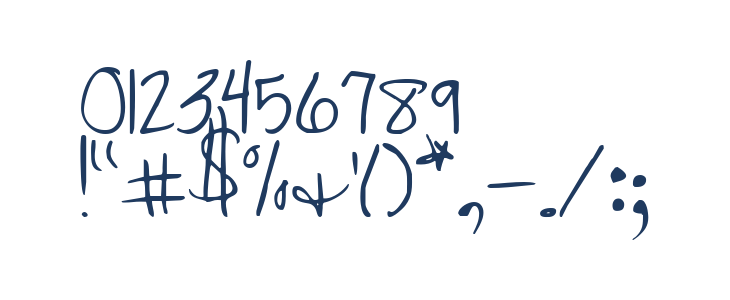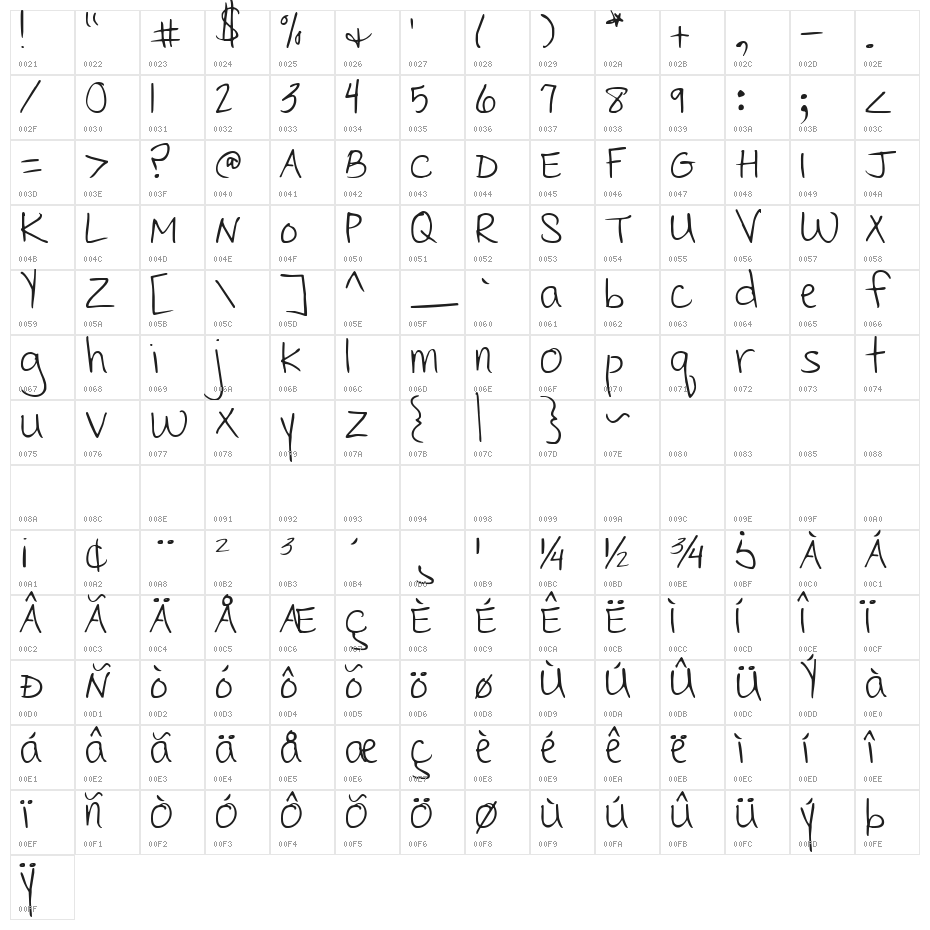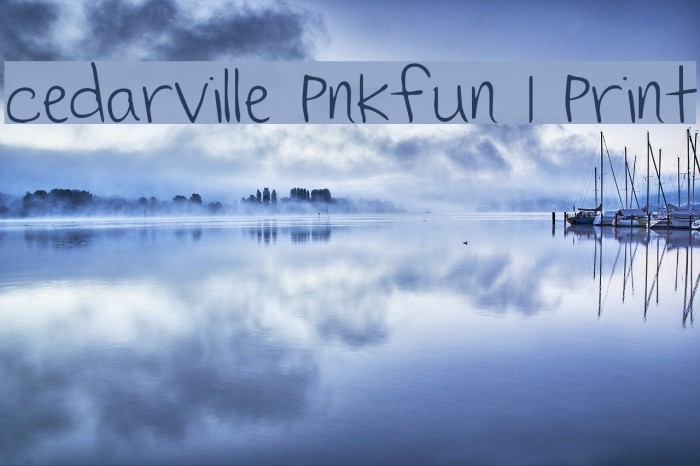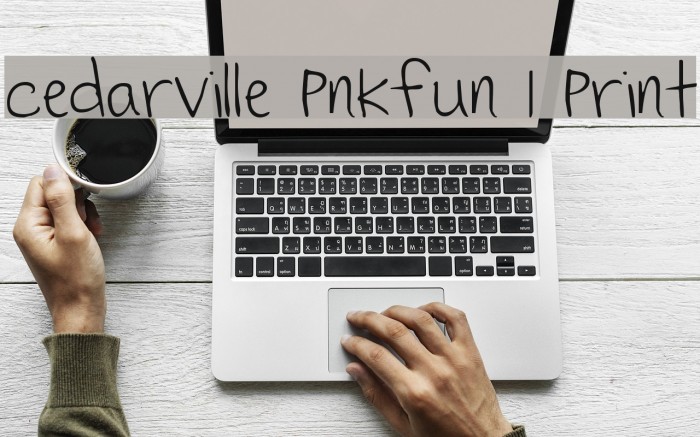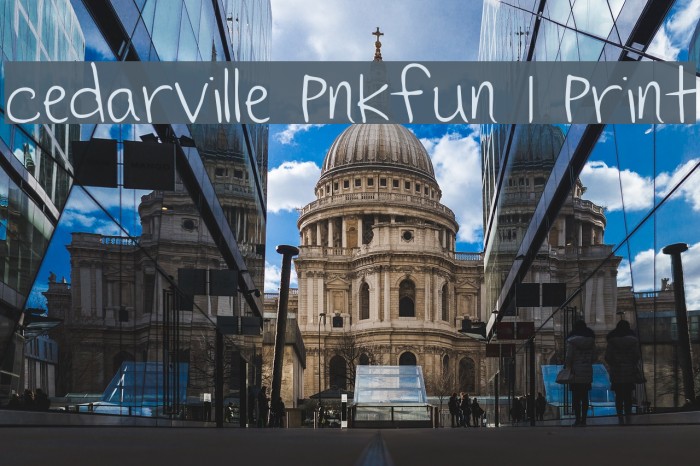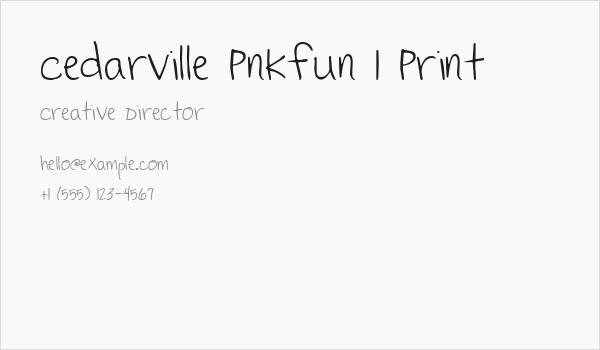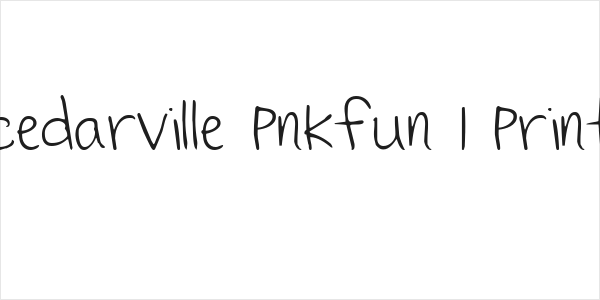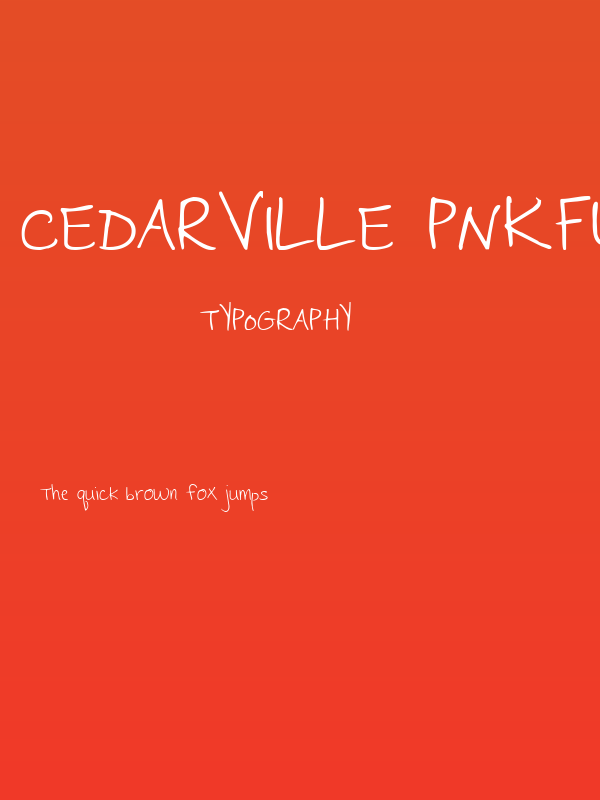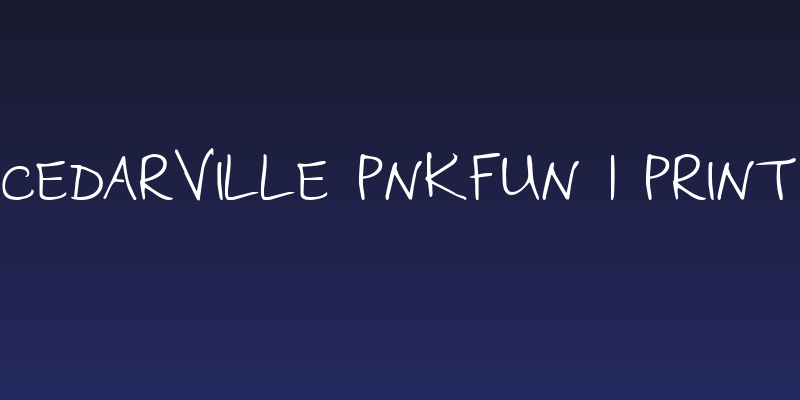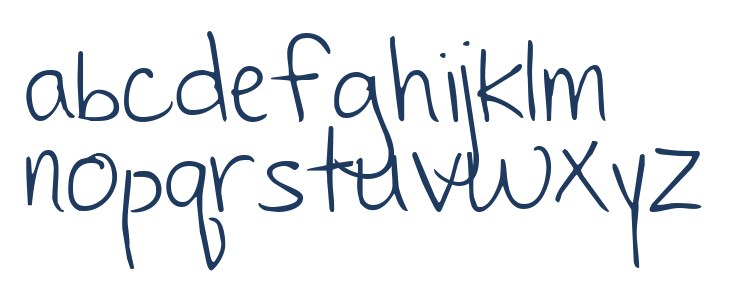
Cedarville Pnkfun 1 Print Font
Cedarville Pnkfun 1 Print Description
This font features a playful and casual handwritten style, characterized by its irregular strokes and informal appearance. The letters are slightly slanted, giving a dynamic and lively feel. The uppercase and lowercase letters maintain a consistent flow, while the numerals and special characters complement the overall aesthetic. The strokes are moderately thick, providing a balanced contrast that enhances readability without losing the whimsical charm. This font is ideal for projects that require a personal touch, such as greeting cards, invitations, or children's book illustrations.
| Proposed Projects | Greeting cards, invitations, children's book illustrations, casual branding. |